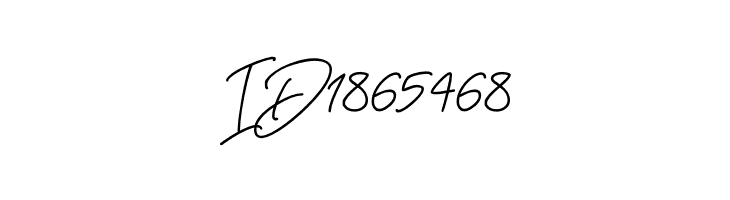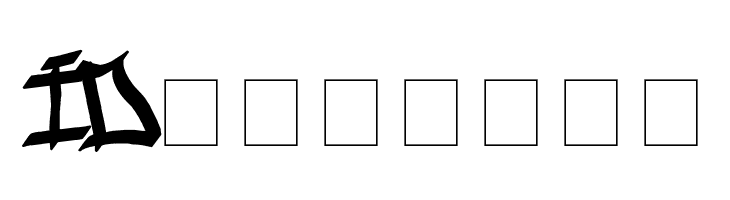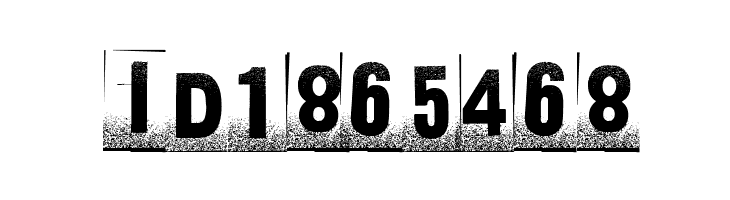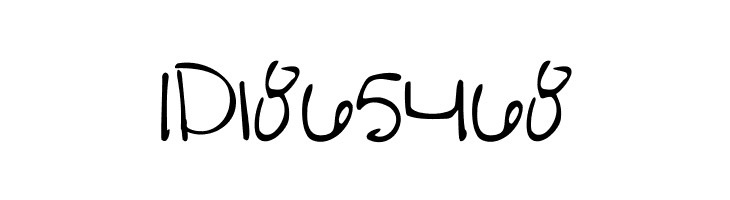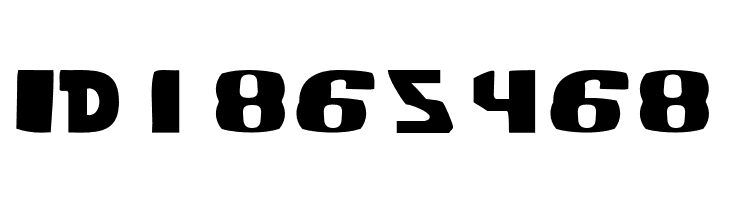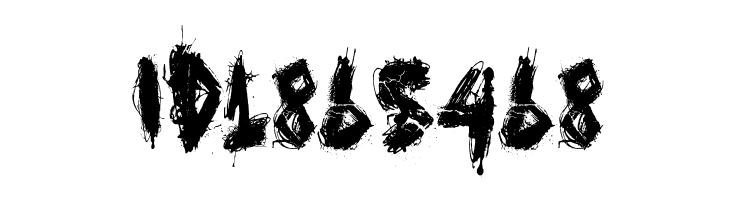
A bold, graffiti-inspired font with sharp, angular lines and an urban feel.
A bold, distressed font with a gritty, textured appearance reminiscent of graffiti.
A bold, grungy font with jagged, distressed strokes for a dramatic effect.
A bold, playful font with a quirky, vintage horror style.
A flowing, cursive font with elegant, connected letters and a sophisticated style.
A playful, casual handwritten font with flowing, irregular strokes.